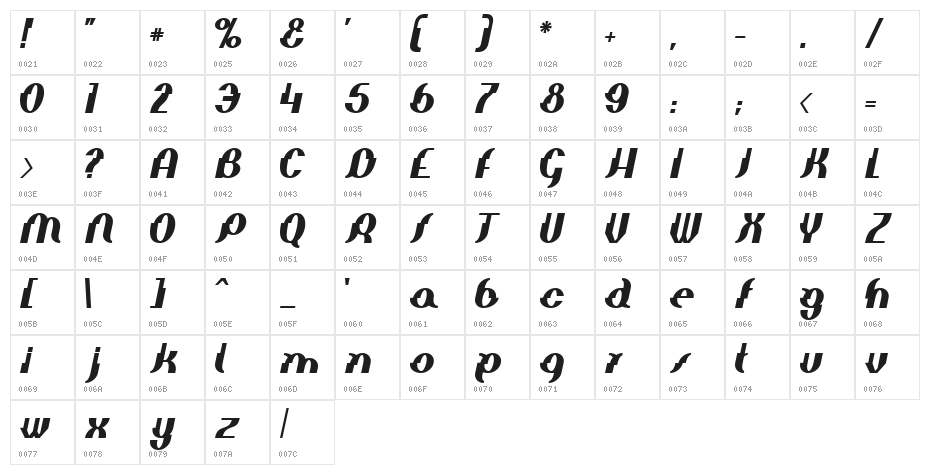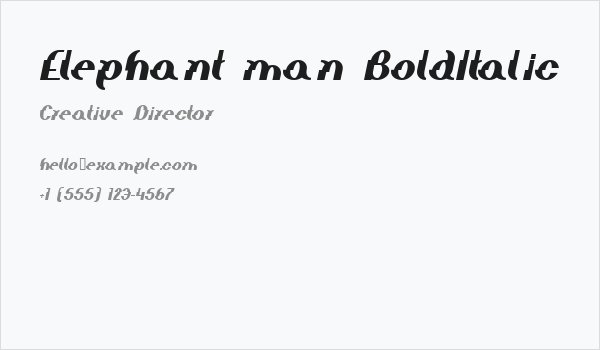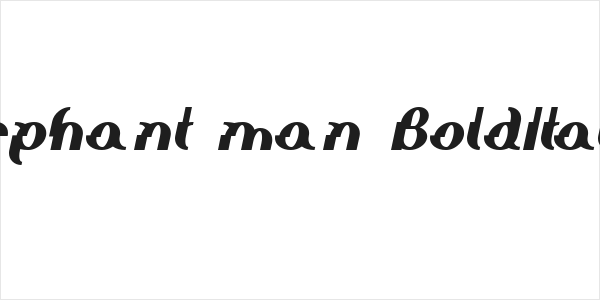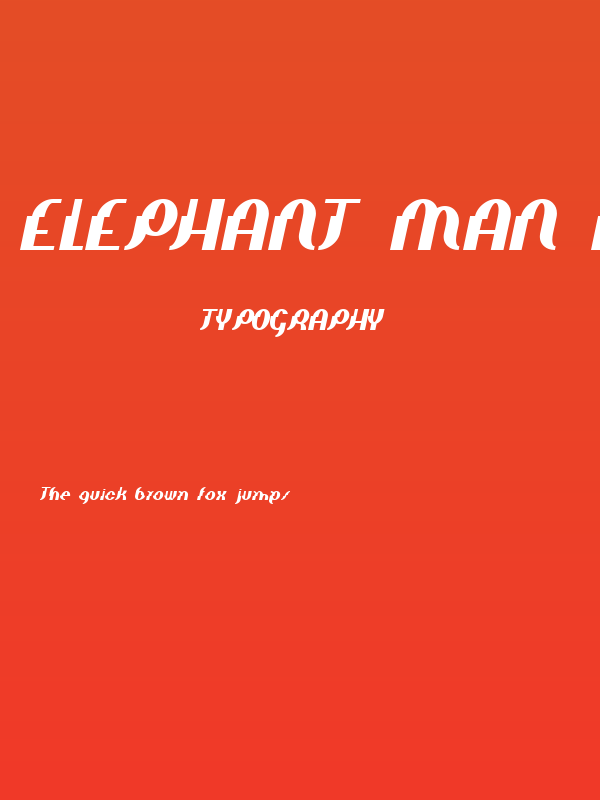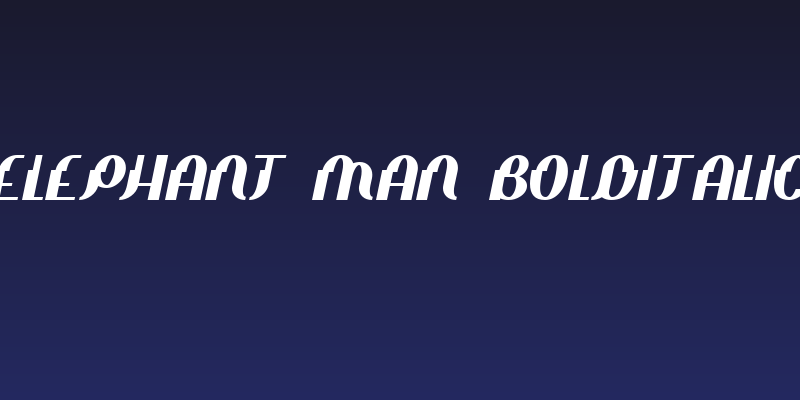
Elephant man BoldItalic Font
Elephant man BoldItalic Description
This font features a bold and italicized style with a distinctive, modern flair. The characters are designed with a strong, forward-leaning slant, giving them a dynamic and energetic appearance. The strokes are thick and consistent, providing a sense of strength and stability. The uppercase letters are particularly striking, with unique curves and angles that make them stand out. The lowercase letters maintain the same boldness, ensuring readability while adding a touch of elegance. Numbers and special characters are equally bold, maintaining the overall aesthetic. This font is perfect for making a statement in any design project.
| Proposed Projects | Ideal for headlines, posters, branding, and any project requiring a strong visual impact. |